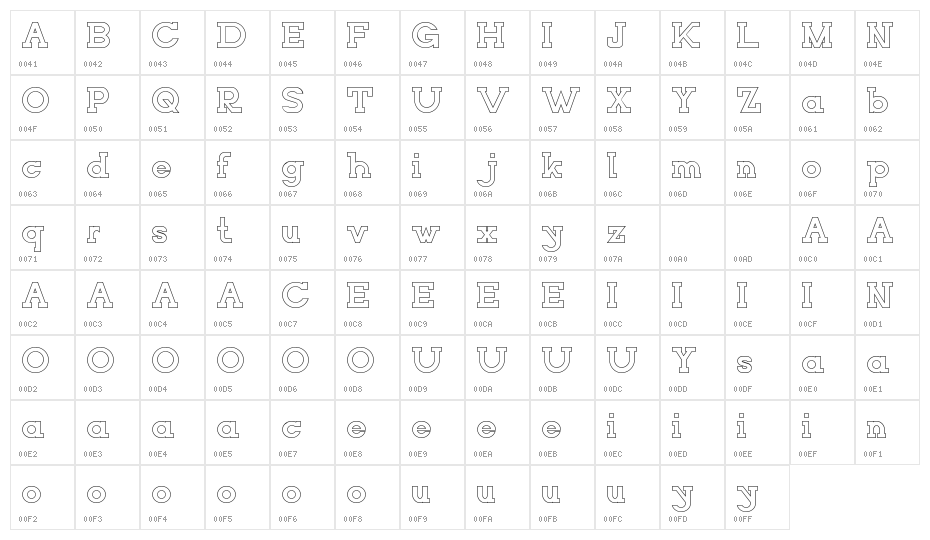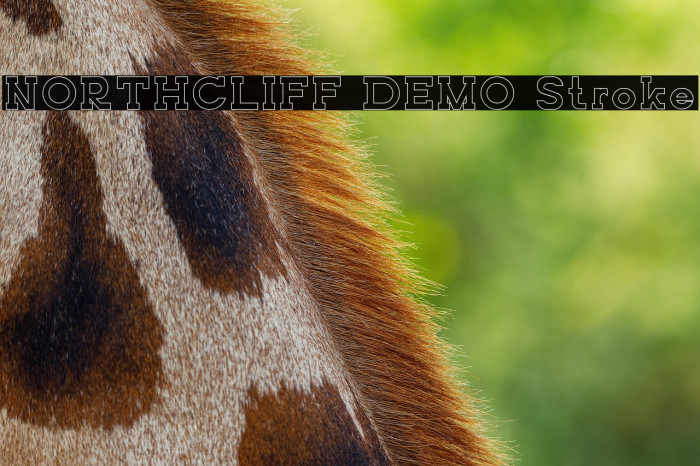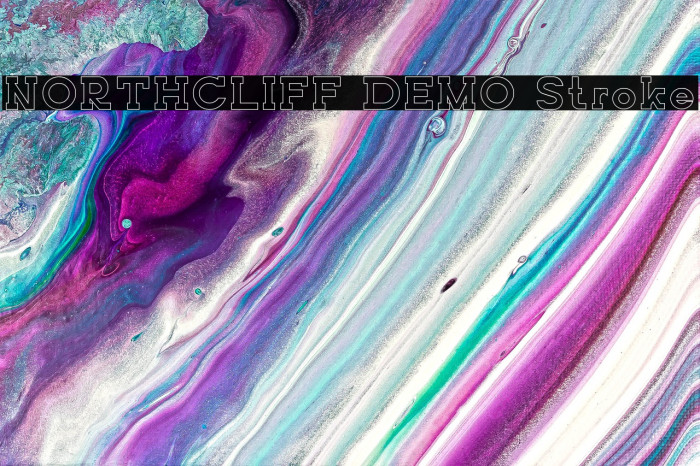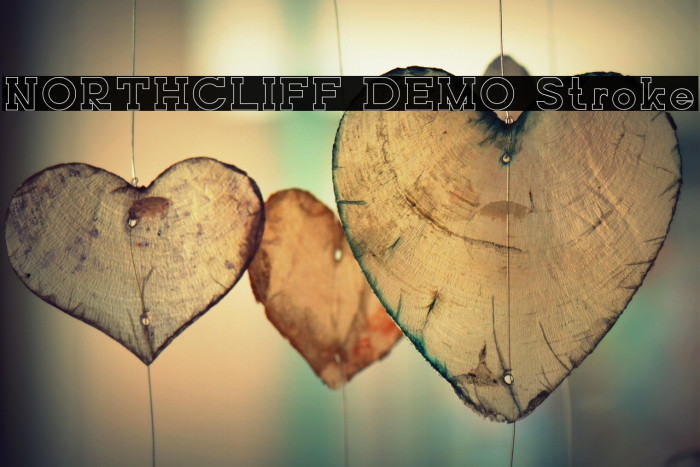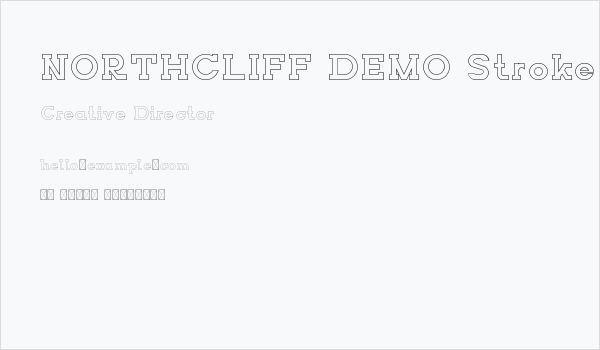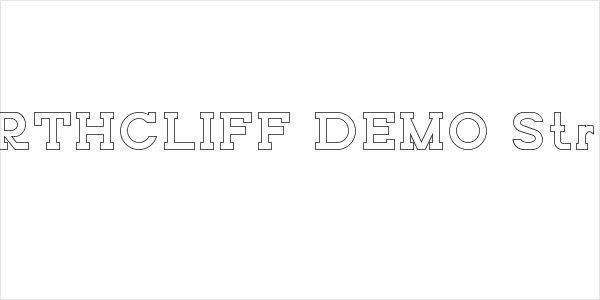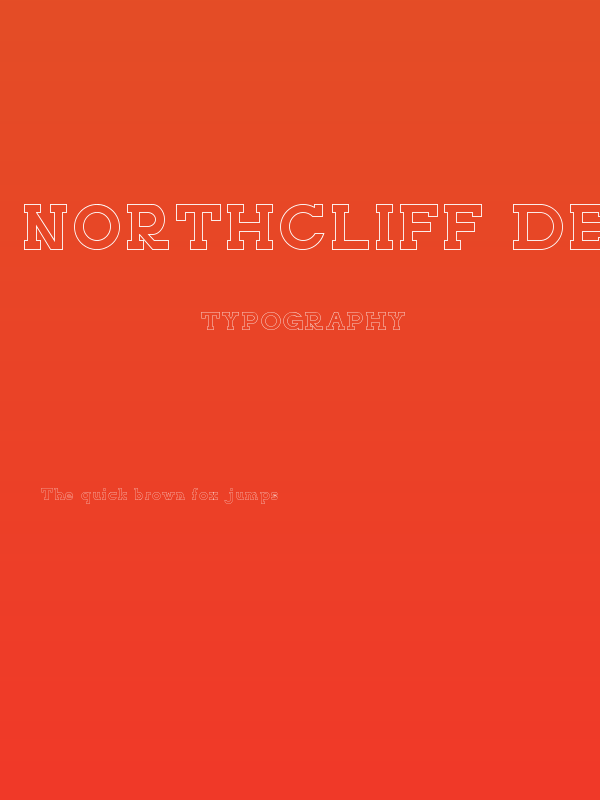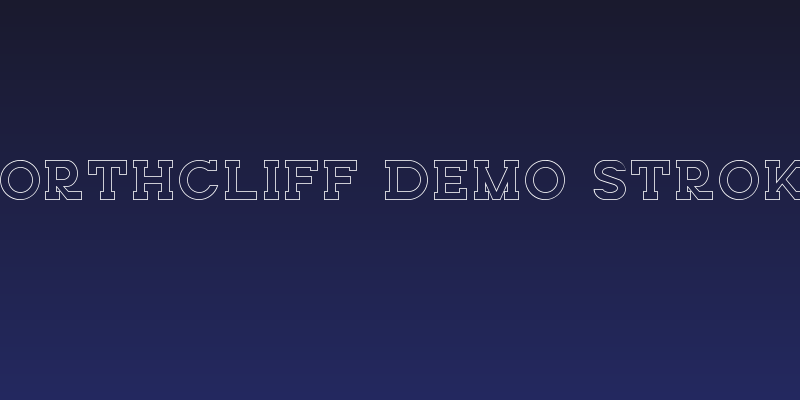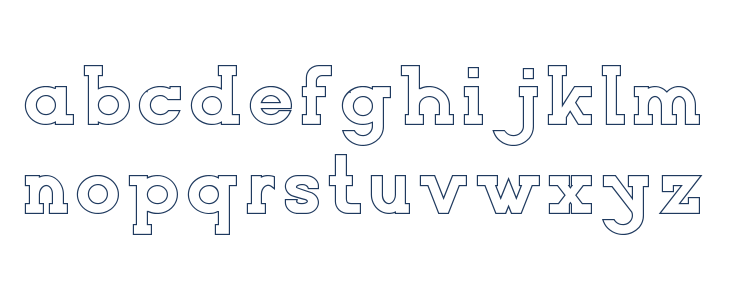
NORTHCLIFF DEMO Stroke Font
NORTHCLIFF DEMO Stroke Description
This font features a bold, outlined style with a geometric structure, giving it a modern and clean appearance. The uppercase and lowercase letters are consistent in their stroke width, creating a uniform look across the alphabet. The characters have a slightly condensed form, which enhances their readability and makes them suitable for various design applications. The font's open and airy design allows for excellent legibility, even at smaller sizes. Its unique outline style adds a touch of creativity and can be used to make text stand out in a variety of contexts.
Proposed ProjectsIdeal for headlines, posters, branding, and any design project that requires a modern and eye-catching typeface.